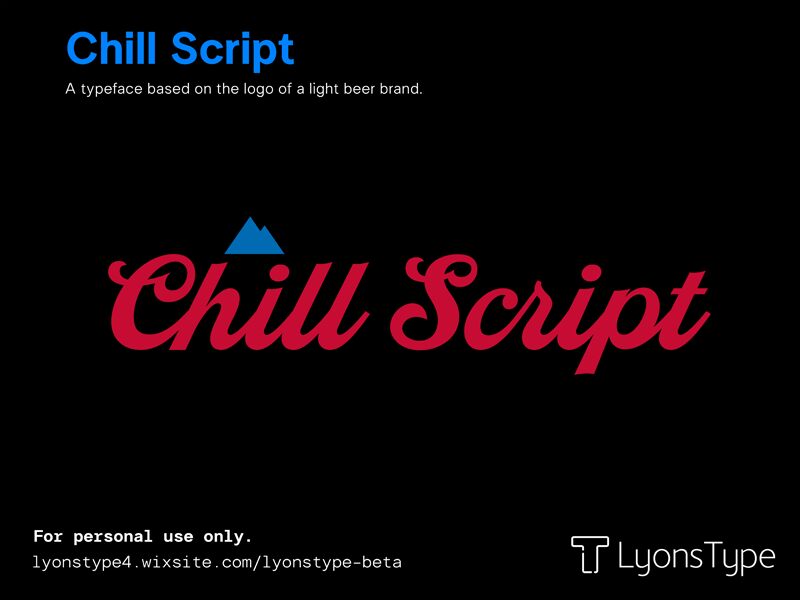
Chill Script by LyonsType exudes a relaxed yet confident vibe with its smooth brush style that flows effortlessly across the page. The bold strokes of this font evoke the hand-painted signs of casual eateries and festive beach resorts. Its warm, inviting curves suggest a welcoming atmosphere, making it an excellent choice for branding, event invitations, or any project that calls for a touch of laid-back elegance.
In design contexts, Chill Script's bold and fluid character makes it stand out in large headers and logos where its friendly nature can shine. It is equally at home in advertising for lifestyle products or as the voice of an artisanal brand, bringing a personal touch to digital canvases with its handcrafted feel.
A typeface based on the logo of a light beer brand.
Chill Script